Frankenstein
by Mary Shelley
designed by Tabitha Lahr
Shelley started writing the story when she was 18, and the first edition was published anonymously in London in 1818, when she was 20. Her name first appeared in the second edition, which was published in Paris in 1821. I decided to repackage it with a more modern abstract look that focuses on the intense emotional aspect of the novel as opposed to the more common figurative monster imagery. To complete the stark cover is silver foiling of the spark explosion. The interior also includes more of the same emotive art that was used on the cover to set off each volume.
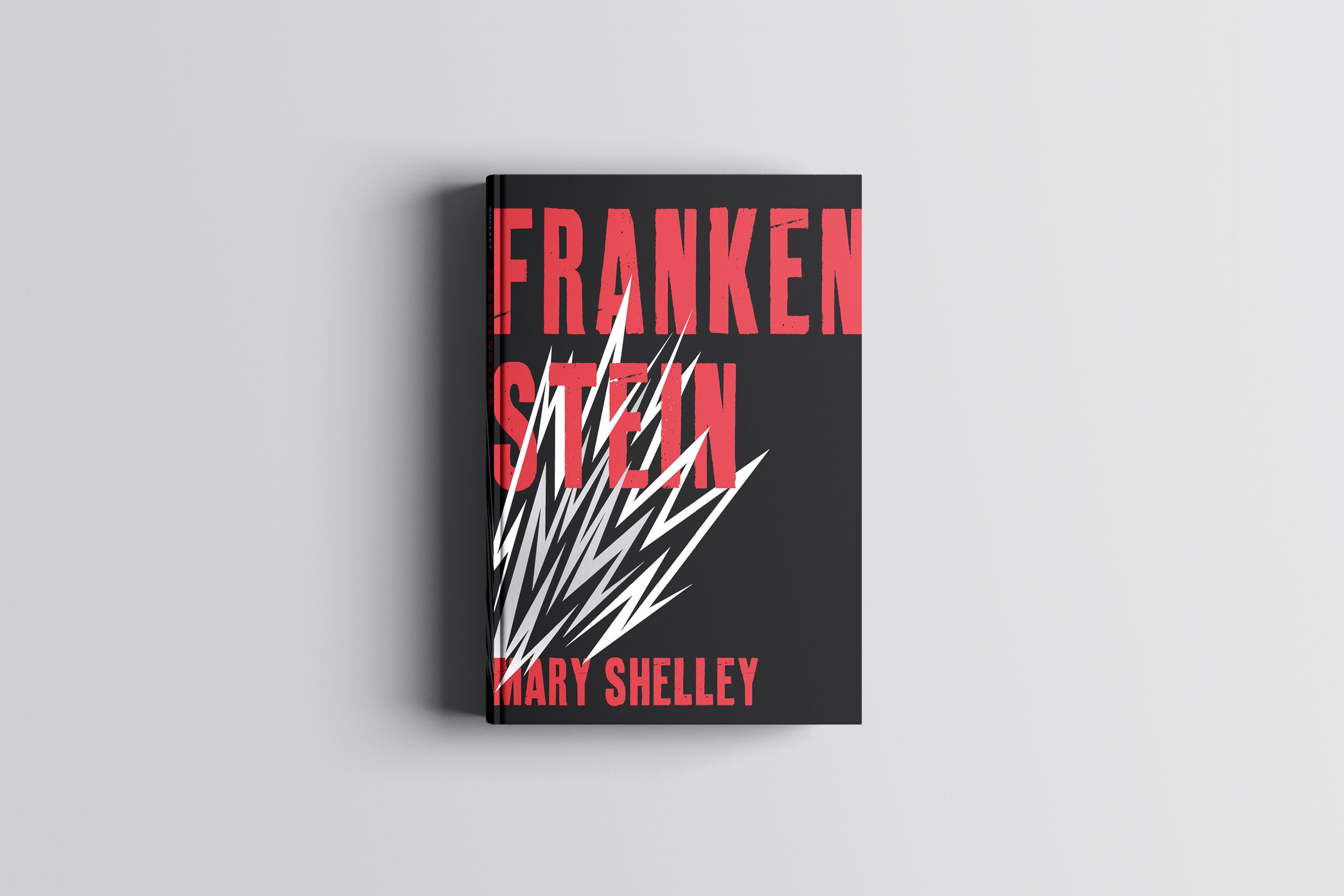
Details
Original Publication Date
1818
Target Audience
Horror and literary fiction readers ages 14 +
Trim Size
6 × 9"
Text
11/14 Adobe Jenson Pro
Specifications
Foil stamped paperback